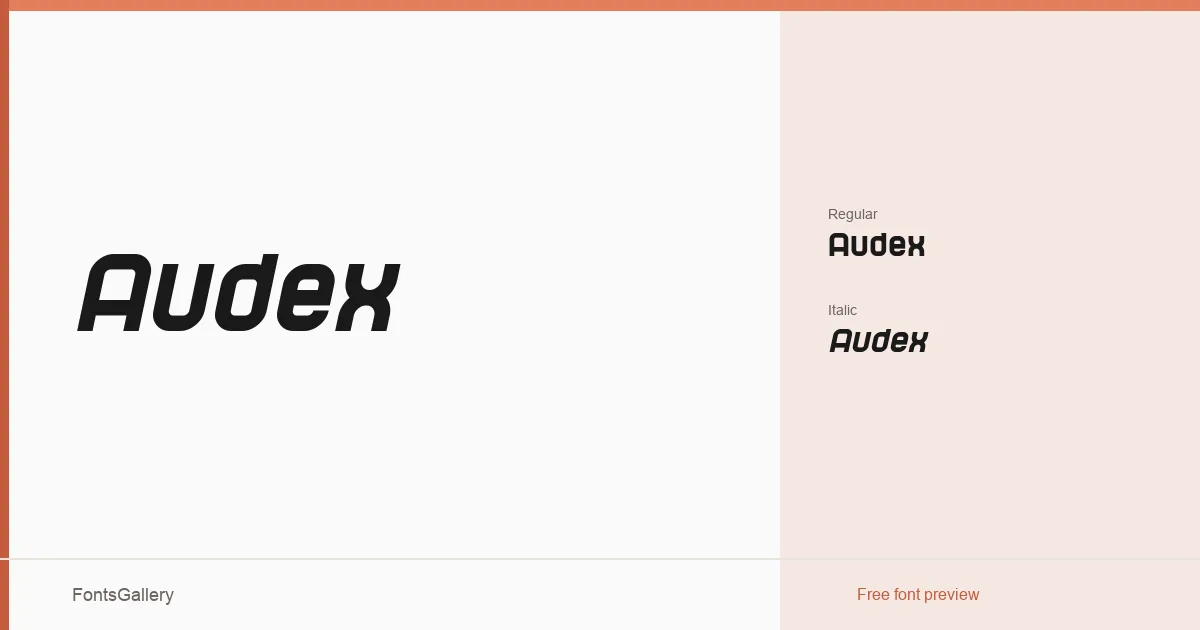
About Audex Font
There is something deliberately engineered about these letterforms — clean angles, confident spacing, and a geometric rigidity that reads as purposeful rather than cold. Audex comes from GGBotNet and covers both Latin and Cyrillic scripts, giving it real reach across multilingual projects. The sample alone, set in all-caps, shows you how much authority the face carries at display sizes.
This is a sans serif built for impact, sitting comfortably in that futuristic, modern register without tipping into gimmick. The family ships in two cuts — Regular and Regular Italic — available as both TTF and OTF files. The upright is the workhorse: tight, professional, and structured. The italic adds motion without breaking the overall discipline of the design, useful when you need to introduce emphasis without switching typefaces entirely.
The design is squarely at home in headline, poster, logo, and branding work, as well as advertisement contexts where a bold, futuristic tone needs to land quickly and hold attention. Cyrillic support opens it to Eastern European and Russian-language campaigns without compromise. GGBotNet suggests pairing it with Aresink, Ballmain, 321 Impact, Bizantheum, or Batoshi — each offering a different kind of contrast or kinship depending on the hierarchy you are building.